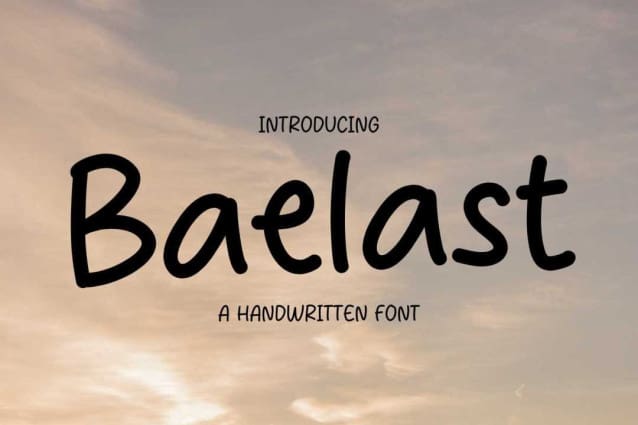
Baelast Hand Font
Baelast Hand Font, perfectly fit for branding, logo, wedding things, greeting cards, fashion, lookbook, marketing promotion, anytime you want to look fancy elegant but still casual.